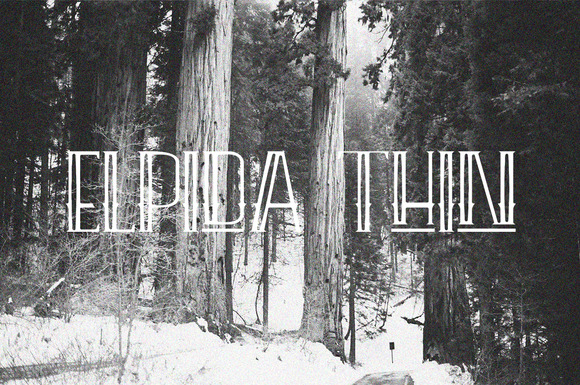
Prepare to be captivated by Elpida, an exquisite outline font crafted by the visionary Ijem RockArt. Dive into the realm of visual aesthetics and let your creativity soar with this elegant display font. Elpida's slender and delicate strokes exude a timeless charm, effortlessly elevating your projects to new heights of sophistication.
Picture this: an ethereal invitation graced with Elpida's graceful lines, effortlessly setting the tone for an unforgettable occasion. Or envision your brand's logo adorned with its refined curves, communicating a sense of elegance and professionalism. Elpida's versatility extends beyond mere aesthetics, seamlessly adapting to a myriad of creative endeavors.
Journey into the world of Elpida and discover the endless possibilities it holds. Whether you're designing captivating posters, enchanting social media graphics, or eye-catching website elements, Elpida will lend its charm to every project you undertake. Its thin and delicate nature makes it a perfect choice for adding a touch of refinement to your creations, effortlessly elevating them from ordinary to extraordinary.
Indulge in Elpida's allure and immerse yourself in a world of limitless creativity. Its enchanting essence will captivate your audience, leaving them spellbound by your designs. Experience the transformative power of Elpida and unlock a new realm of artistic expression today!